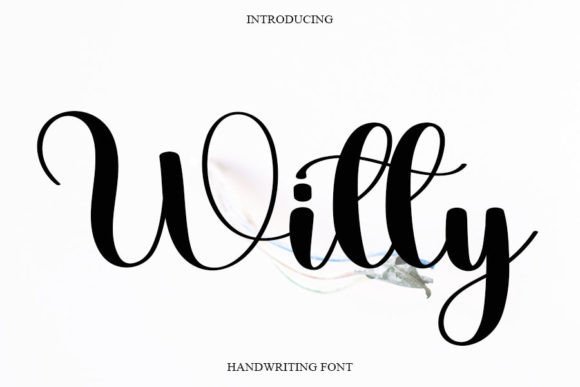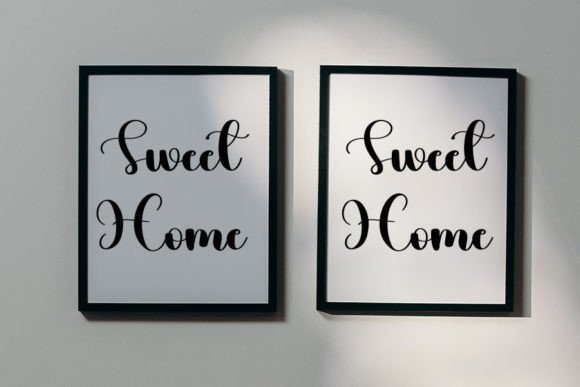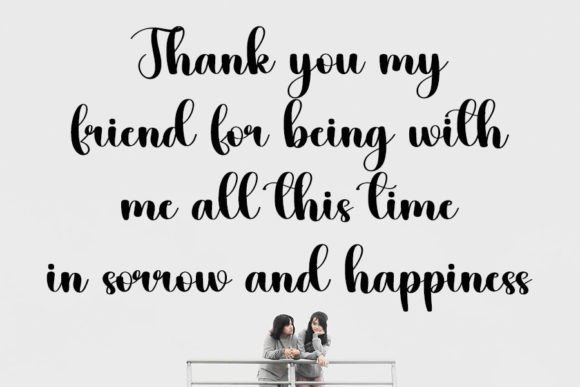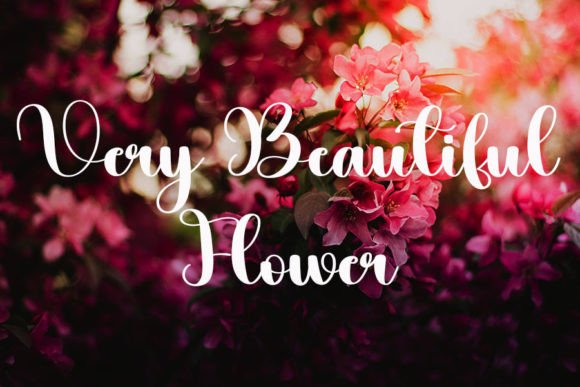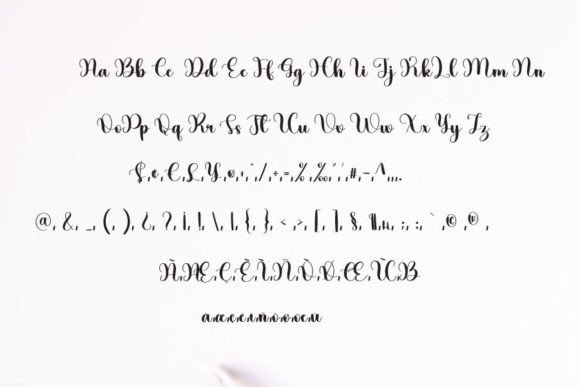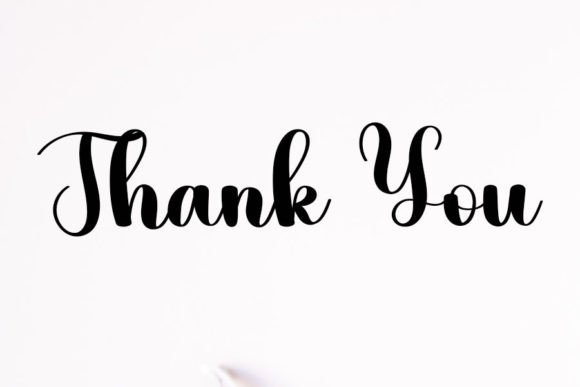
Witty Font
About Witty Font
**”Witty” Handwritten Font: A Luxurious Addition to Your Design Toolkit**
The “Witty” handwritten font is a sweet and beautiful typeface that brings an element of luxury and charm to your design projects. With its characters gracefully dancing along the baseline, this font adds a touch of opulence to your creative endeavors. Here are some creative ways to make the most of the “Witty” font to enhance your designs:
1. **Invitations:** Design elegant and enchanting invitations for weddings, galas, or high-end events. The “Witty” font’s graceful style elevates the overall aesthetic of your invitation designs.
2. **Greeting Cards:** Create eye-catching greeting cards for special occasions like birthdays, anniversaries, or holidays. The font’s beauty enhances the sentiment of your cards, making them even more memorable.
3. **Product Packaging:** Elevate the packaging of premium products, such as chocolates, cosmetics, or artisanal goods, with the “Witty” font to convey a sense of luxury and sophistication.
4. **Logo Design:** Craft logos and branding materials for boutique businesses, fashion labels, or upscale brands seeking a distinctive and elegant identity. The font adds a touch of refinement to your branding.
5. **Quotes:** Design visually striking quote graphics for social media, posters, or merchandise. The “Witty” font’s luxurious touch amplifies the impact of your quotes and messages.
6. **Menu Design:** Create sophisticated menus for fine dining restaurants or luxury eateries. The font adds an air of elegance to the dining experience, setting the stage for a memorable meal.
7. **Stationery:** Design personalized stationery sets with the “Witty” font, perfect for handwritten notes, letters, and correspondence. It imparts a sense of opulence to your written communication.
8. **Wedding Materials:** Design exquisite wedding materials, including save-the-date cards, menus, and place cards. The font complements the elegance of a wedding celebration.
9. **Jewelry Labels:** Use the font in branding and labeling for upscale jewelry and accessory lines. It adds an aura of exclusivity and sophistication to your pieces.
10. **Magazine Headings:** Incorporate the font in magazine headings and article titles to create a luxurious and captivating look for editorial content.
11. **Art Exhibitions:** Apply the font to promotional materials for art exhibitions, gallery openings, or cultural events, adding an aura of artistic sophistication.
12. **Fashion Lookbooks:** Use the “Witty” font in fashion lookbooks, catalogs, and promotional materials for clothing and accessory brands that embrace luxury and style.
13. **Website Banners:** Incorporate the font in website banners and headers to make a striking statement and establish a luxurious online presence.
14. **Product Labels:** Enhance the labels of premium and artisanal products, such as gourmet foods or handcrafted goods, with the “Witty” font for a touch of sophistication.
15. **Hotel Branding:** Apply the font to branding materials for luxury hotels and resorts to create an upscale and inviting atmosphere.
16. **Event Posters:** Design elegant posters for formal events, galas, or fundraisers, showcasing the “Witty” font’s luxurious aesthetic.
17. **Cocktail Menus:** Craft stylish cocktail menus for bars or lounges, featuring the font to create an inviting and upscale ambiance.
18. **Interior Design:** Use the font in promotional materials for interior design firms or luxury home decor brands to evoke a sense of refined style.
The “Witty” handwritten font offers a delightful blend of sweetness and luxury, making it a versatile choice for a wide range of design projects. Its graceful and charming style adds depth and sophistication to your creative work, leaving a lasting impression on your audience. Embrace the “Witty” font’s luxurious spark as you use it to create captivating designs that exude elegance and charm.